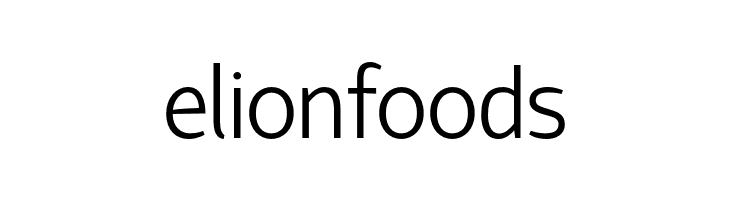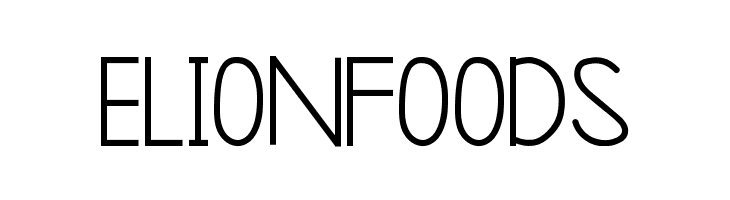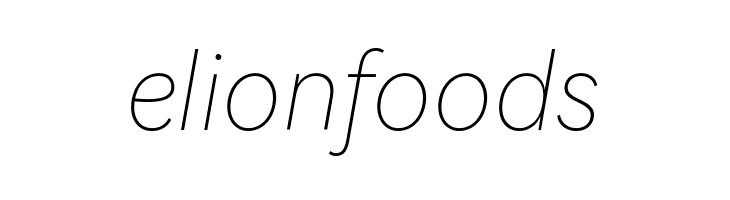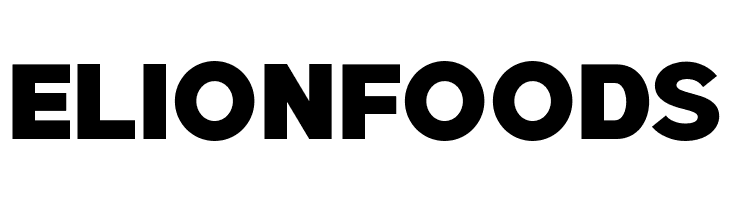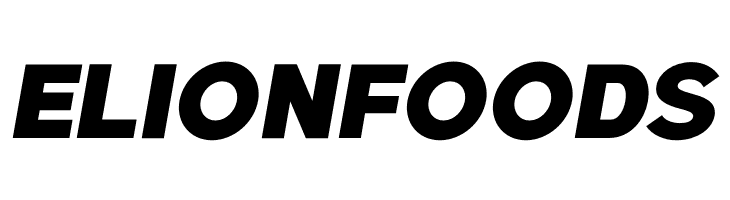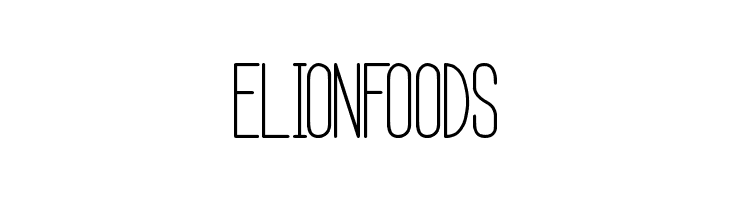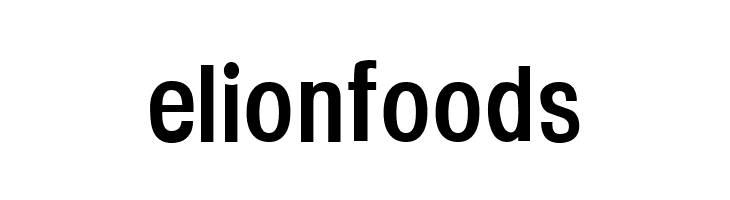
A modern, clean sans-serif typeface with balanced proportions and clear readability.
A thin, modern sans-serif font with geometric precision and elegant simplicity.
A thin, modern sans-serif font with clean lines and balanced proportions.
A sleek, thin, and italic font with a modern and elegant design.
A bold, italic sans-serif font with a dynamic and modern style.
A bold, geometric sans-serif font with a modern and clean aesthetic.
A modern, light sans-serif font with a clean and balanced design.
A clean, modern sans-serif font with smooth, rounded edges and balanced spacing.
A modern, narrow sans-serif font with a sleek, vertical emphasis.